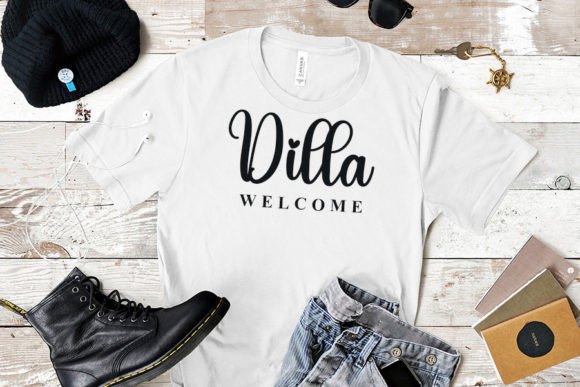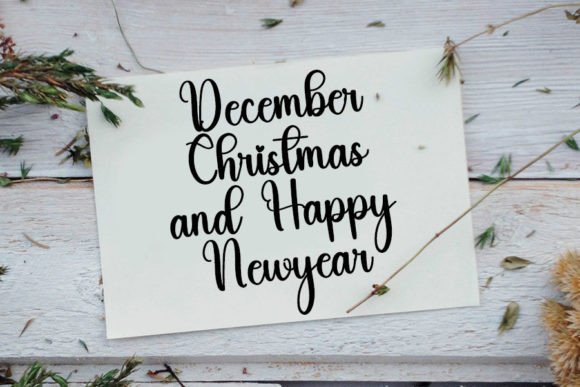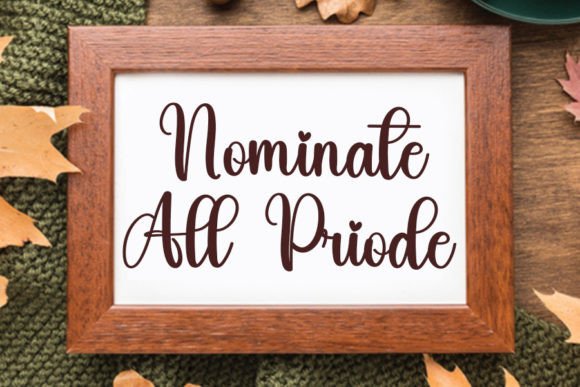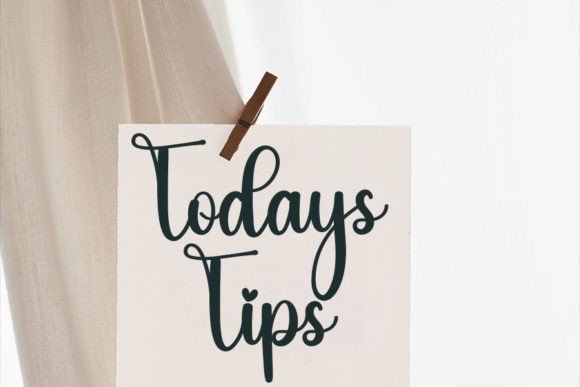
Introducing Active Font: The Friendly Handwritten Font to Elevate Your Creative Projects
Are you tired of using the same old fonts in your creative projects? Do you want to add a personal touch that makes your designs stand out? Look no further than Active Font, a friendly handwritten font designed to become your new favorite. In this article, we’ll dive into the world of Active Font, exploring its features, benefits, and uses, and why it’s a must-have for designers and crafters alike.
The Story Behind Active Font
Active Font is a carefully crafted handwritten font that aims to bring a sense of warmth and personality to your designs. Its creator had a vision of developing a font that would be both elegant and approachable, making it perfect for a wide range of creative projects. With Active Font, you can add a touch of humanity to your designs, making them more relatable and engaging.
Key Features of Active Font
- Handwritten with love: Active Font is a genuine handwritten font, created with precision and care to ensure that every letter and stroke is unique and authentic.
- Clean and legible: Despite its handwritten nature, Active Font is remarkably clean and legible, making it suitable for body text and headlines alike.
- Versatile: Active Font is incredibly versatile, and can be used in a variety of contexts, from digital designs to print materials.
- Easy to read: The font’s careful design ensures that it’s easy to read, even at smaller sizes, making it perfect for use in a range of applications.
Benefits of Using Active Font
So, why should you choose Active Font for your creative projects? Here are just a few benefits of using this wonderful font:
- Adds a personal touch: Active Font brings a sense of personality and warmth to your designs, making them more engaging and relatable.
- Elevates your brand: By using Active Font, you can create a consistent visual identity that sets your brand apart from the competition.
- Perfect for creative projects: Whether you’re working on a logo, brochure, or social media graphics, Active Font is the perfect choice to bring your creative projects to life.
Using Active Font in Your Designs
So, how can you use Active Font in your designs? The possibilities are endless! Here are a few ideas to get you started:
- Logos and branding: Use Active Font to create a unique and memorable logo that reflects your brand’s personality.
- Print materials: Add a personal touch to your print materials, such as brochures, flyers, and business cards.
- Digital designs: Use Active Font in your digital designs, such as social media graphics, website headers, and email newsletters.
- Crafting and DIY projects: Active Font is also perfect for crafters and DIY enthusiasts, and can be used in a range of projects, from handmade cards to scrapbooking.
In conclusion, Active Font is a friendly handwritten font that is sure to become a true favorite in your font library. With its unique blend of elegance and approachability, it’s the perfect choice for designers and crafters looking to add a personal touch to their creative projects. Whether you’re working on a logo, print materials, or digital designs, Active Font is the perfect choice to bring your projects to life. So why wait? Download Active Font today and start creating!